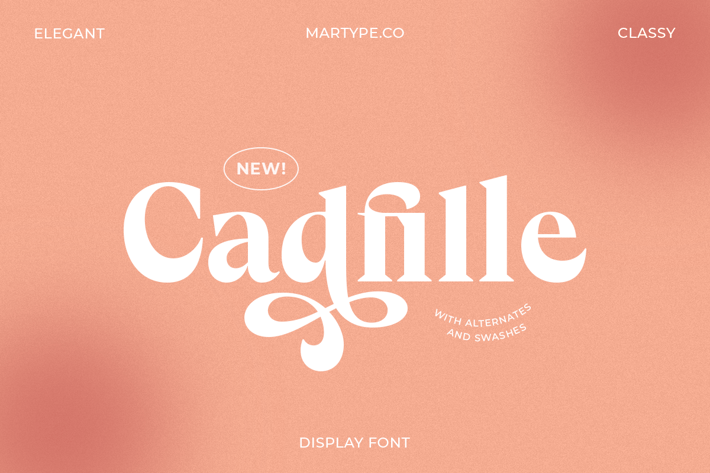
Cadfille - Serif Display Font
Cadfille is an bold and modern serif with a swash and alternates to make your font loveable and delightful also suitable for poster, display, headline and logotype projects.
Cadfille Regular
Cadfille Slanted